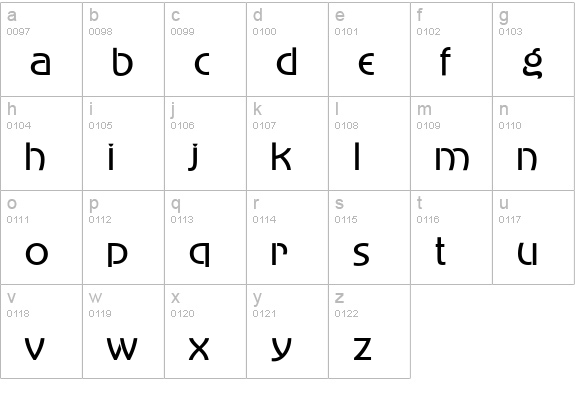
CgAdvertisersGothicLight is a sleek and modern typeface that exudes sophistication and elegance. With its clean lines and sharp edges, this font is perfect for creating eye-catching designs that demand attention. Whether you're working on a brand identity, advertising campaign, or editorial project, CgAdvertisersGothicLight will add a touch of class to your work. The best part? This stunning font is available for free download at FontsMarket.com, allowing you to elevate your designs without breaking the bank. Don't miss out on this opportunity to enhance your projects with the timeless appeal of CgAdvertisersGothicLight. Download it today and see the difference it can make in your design work.